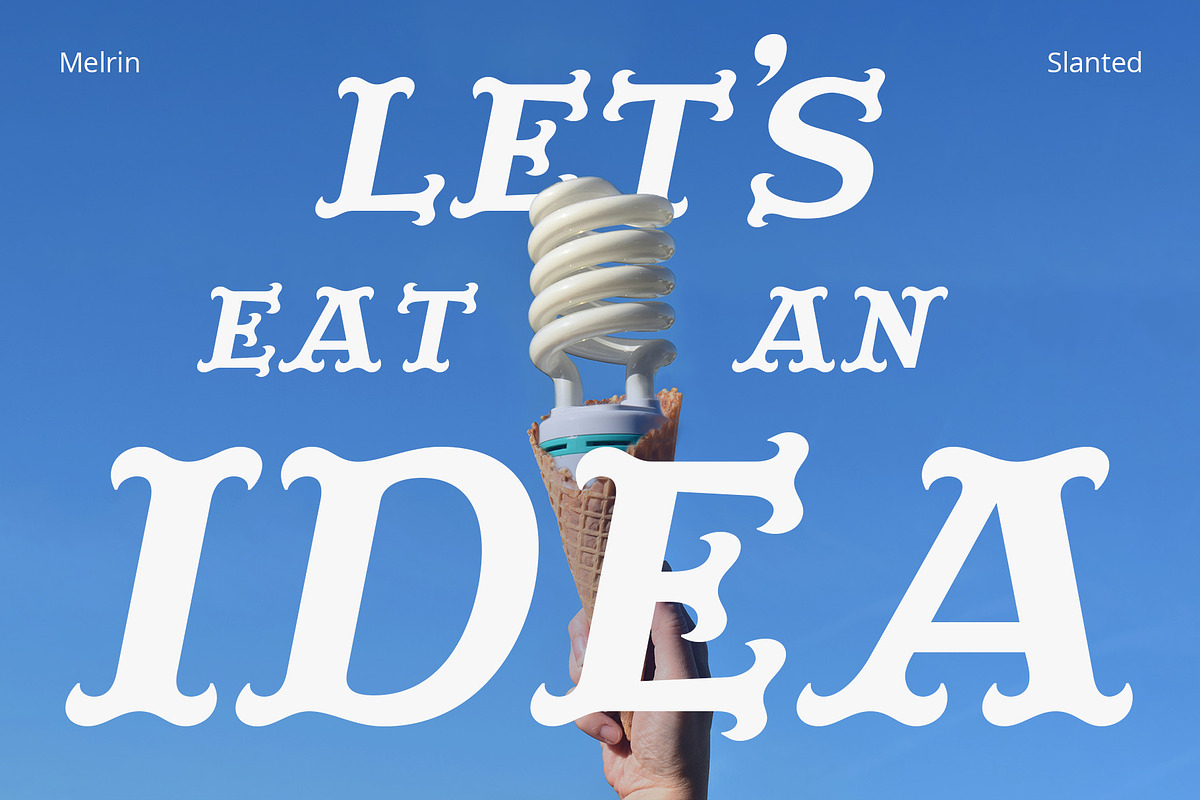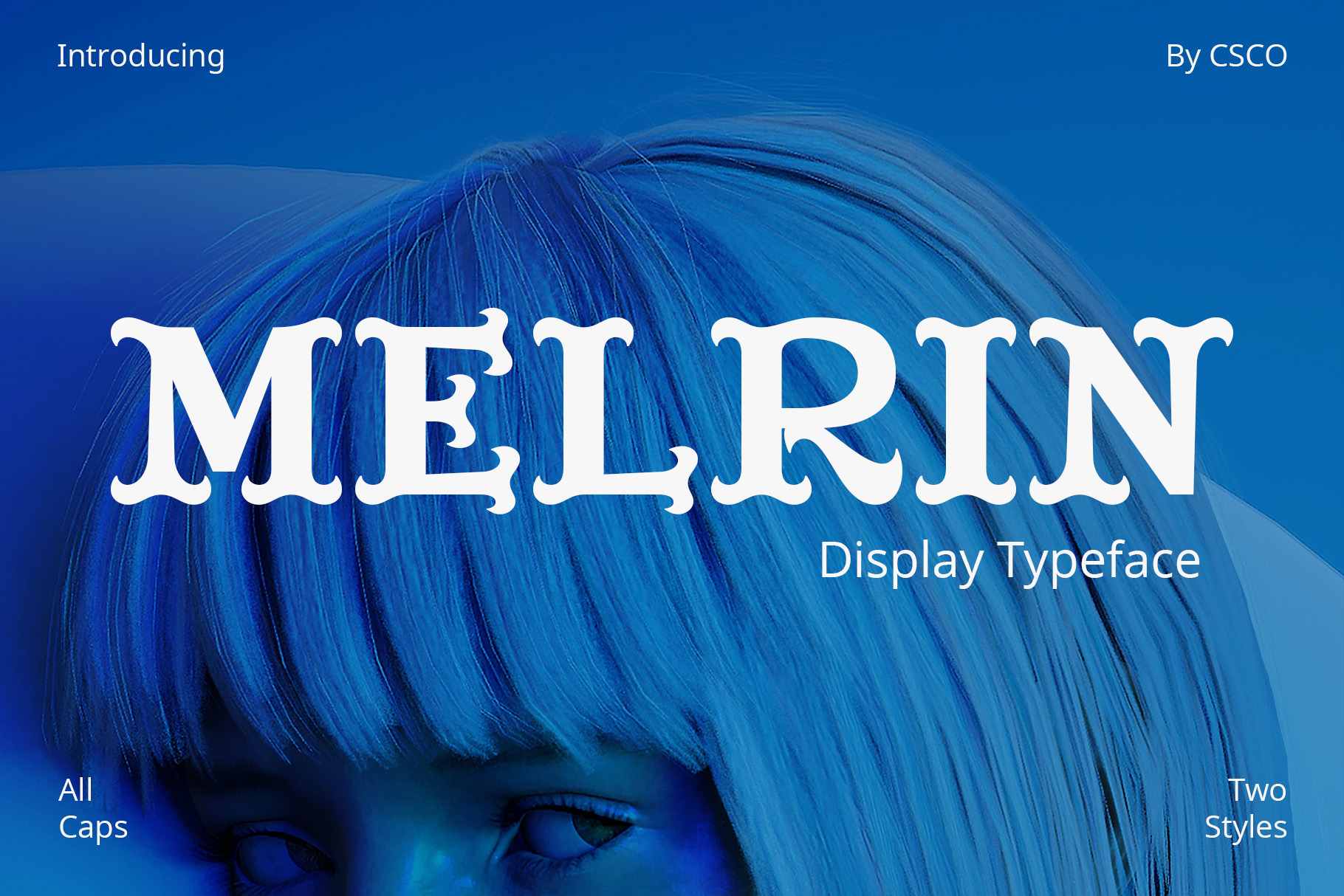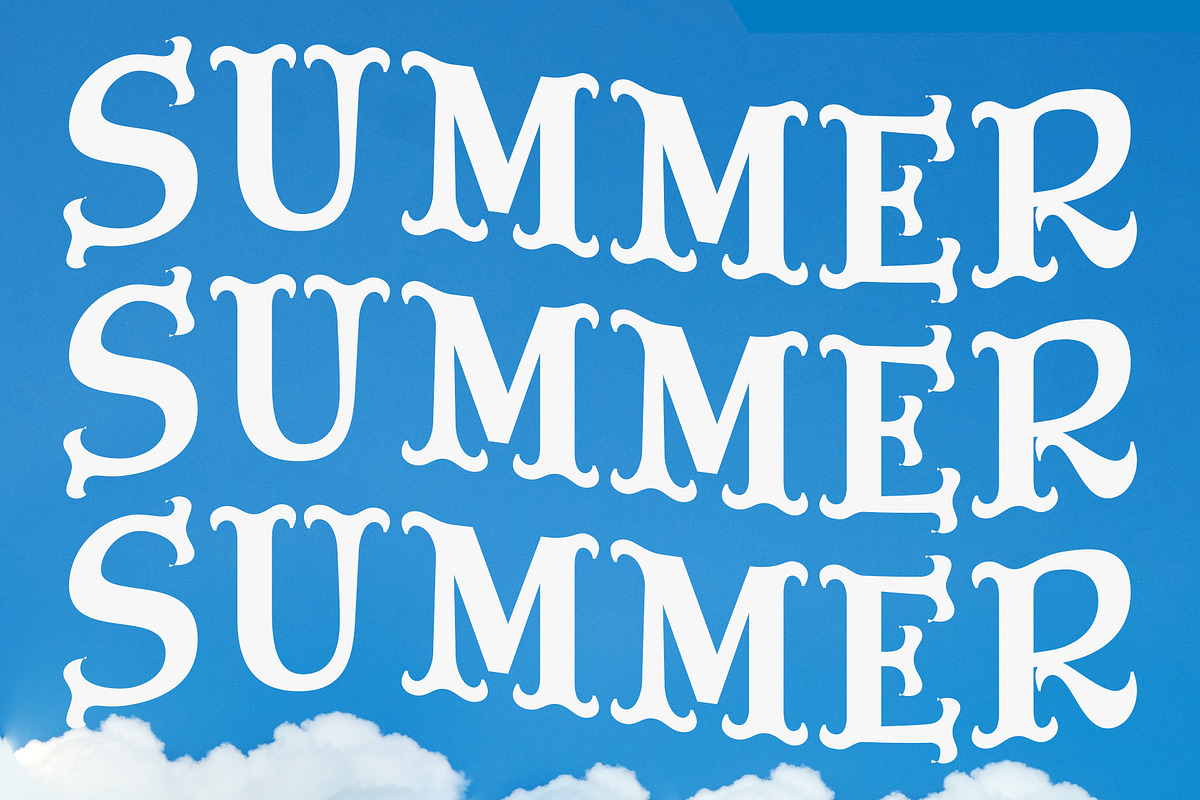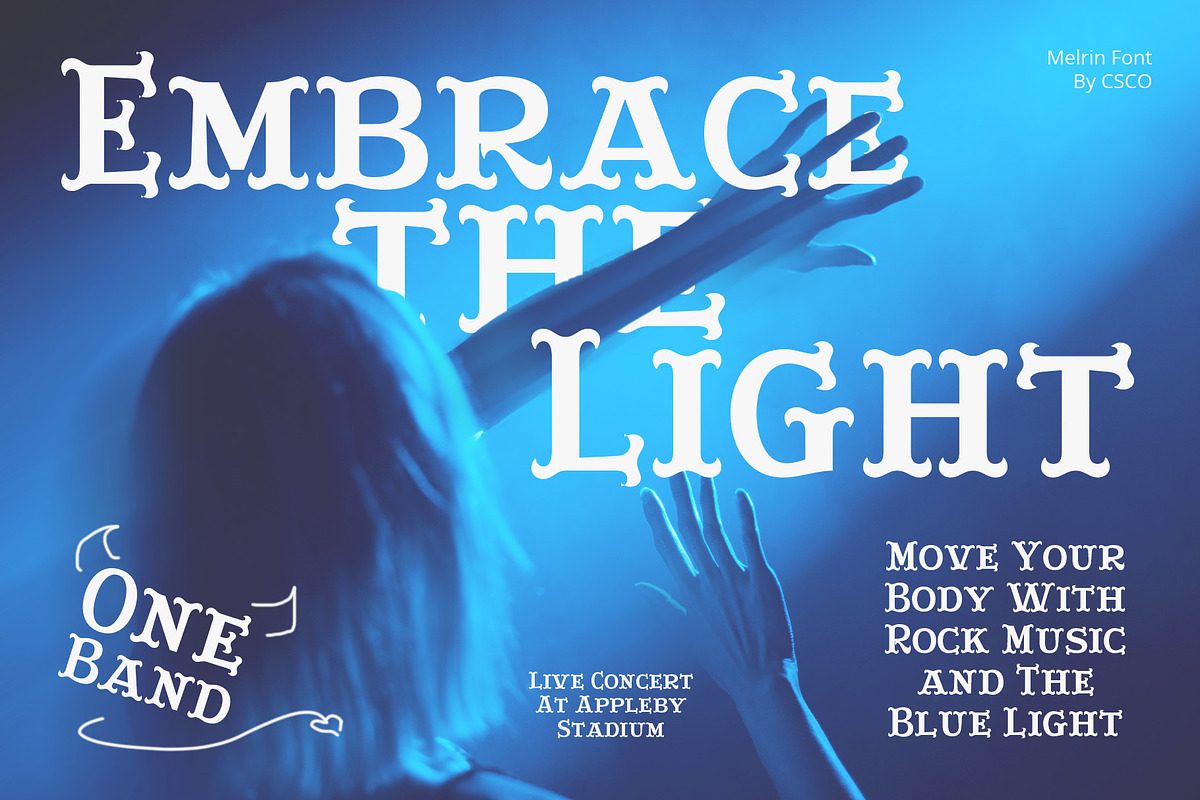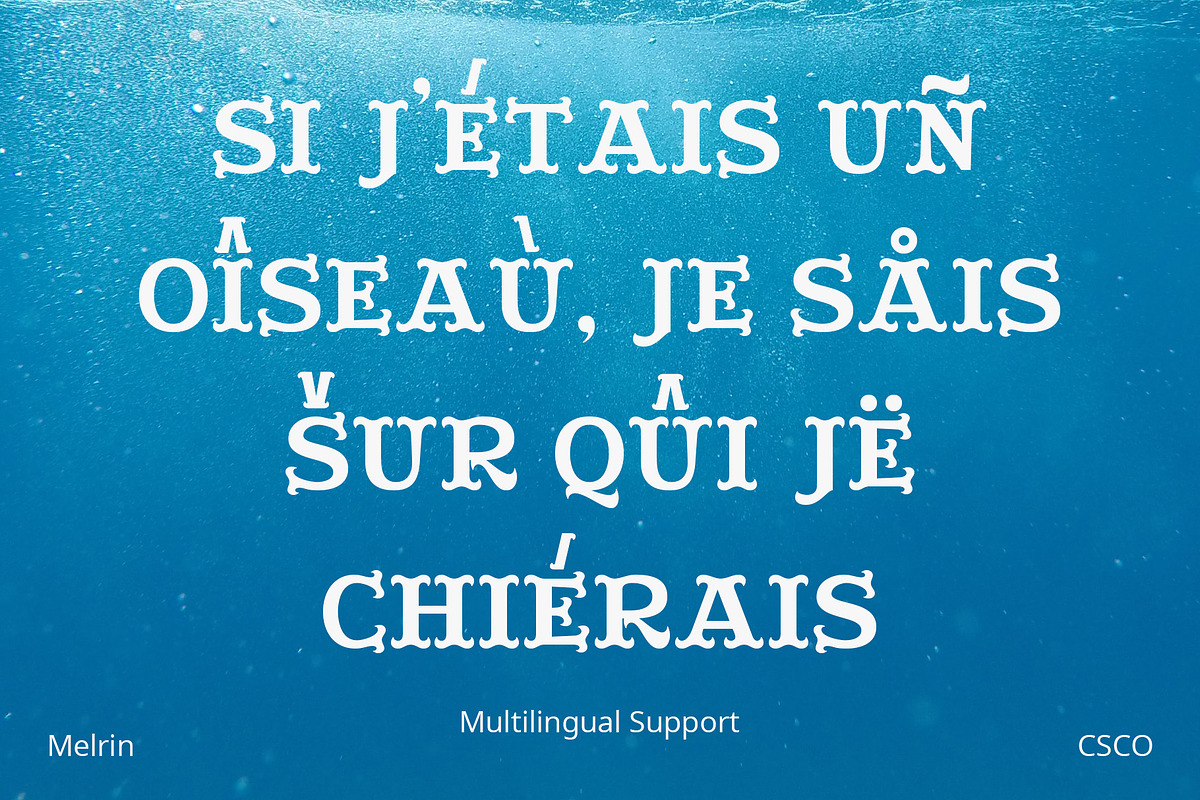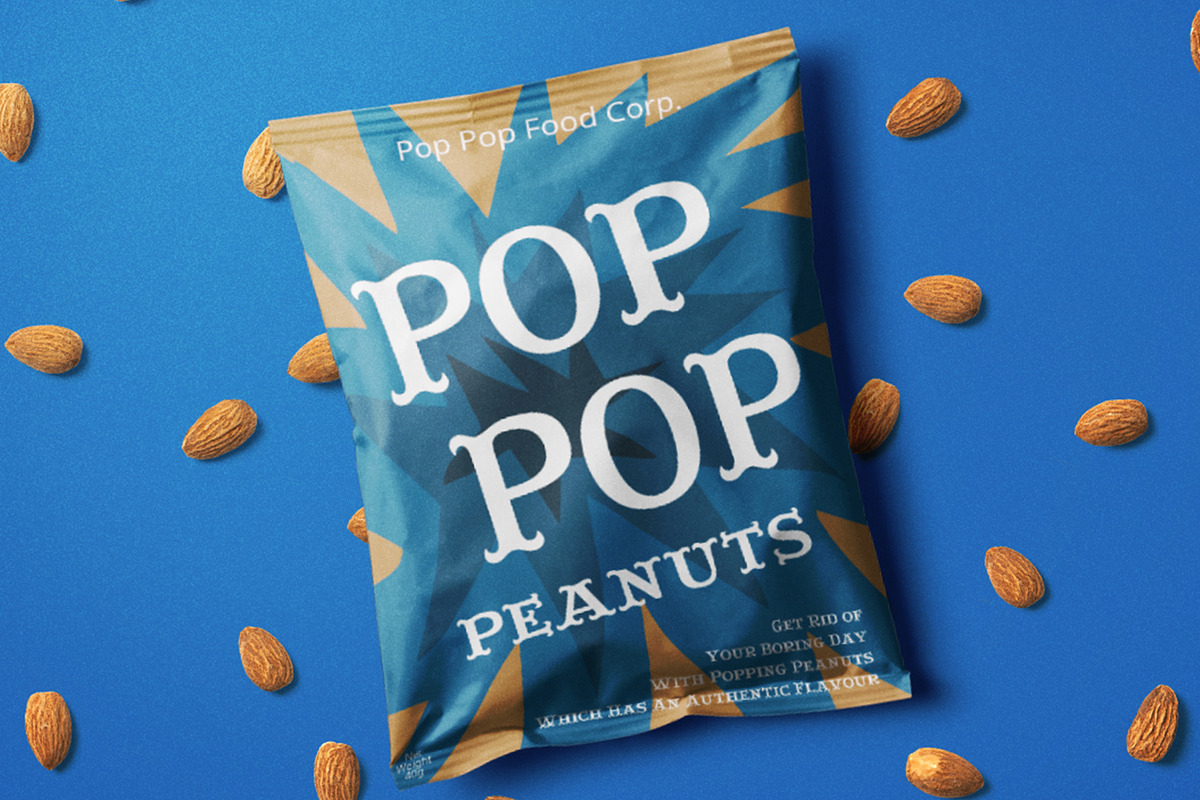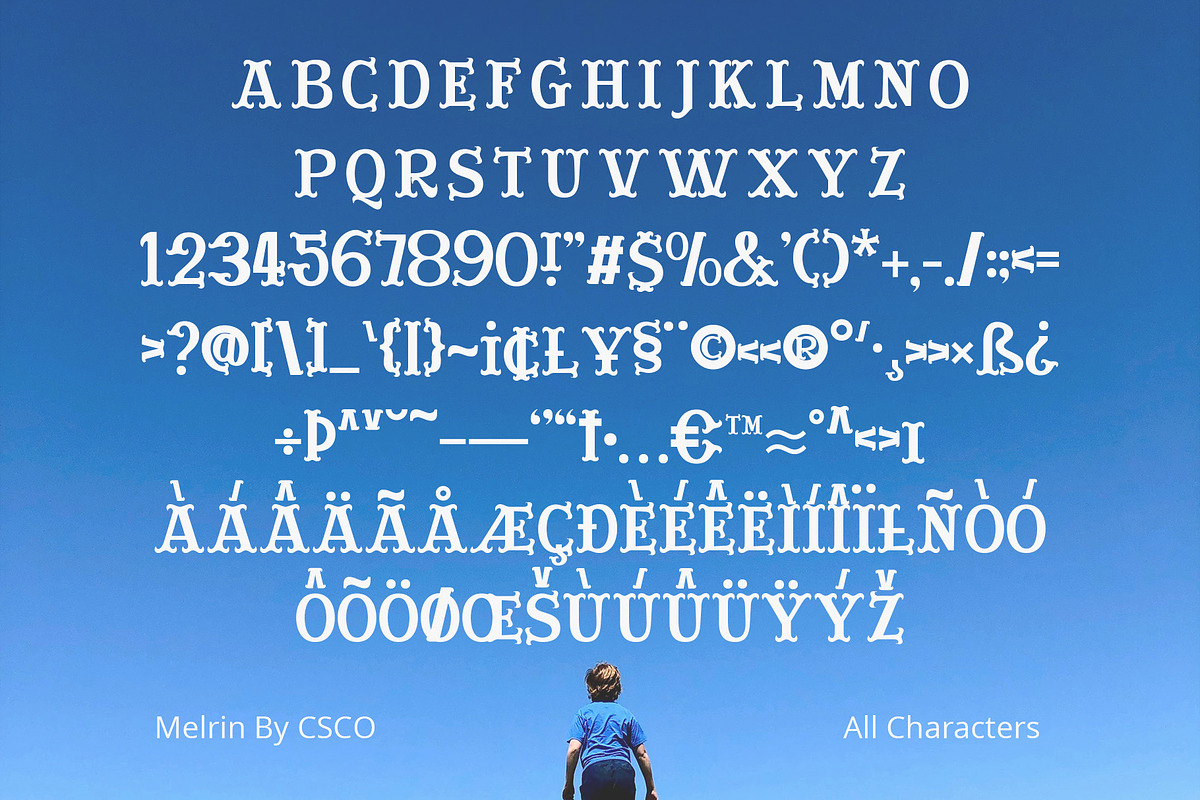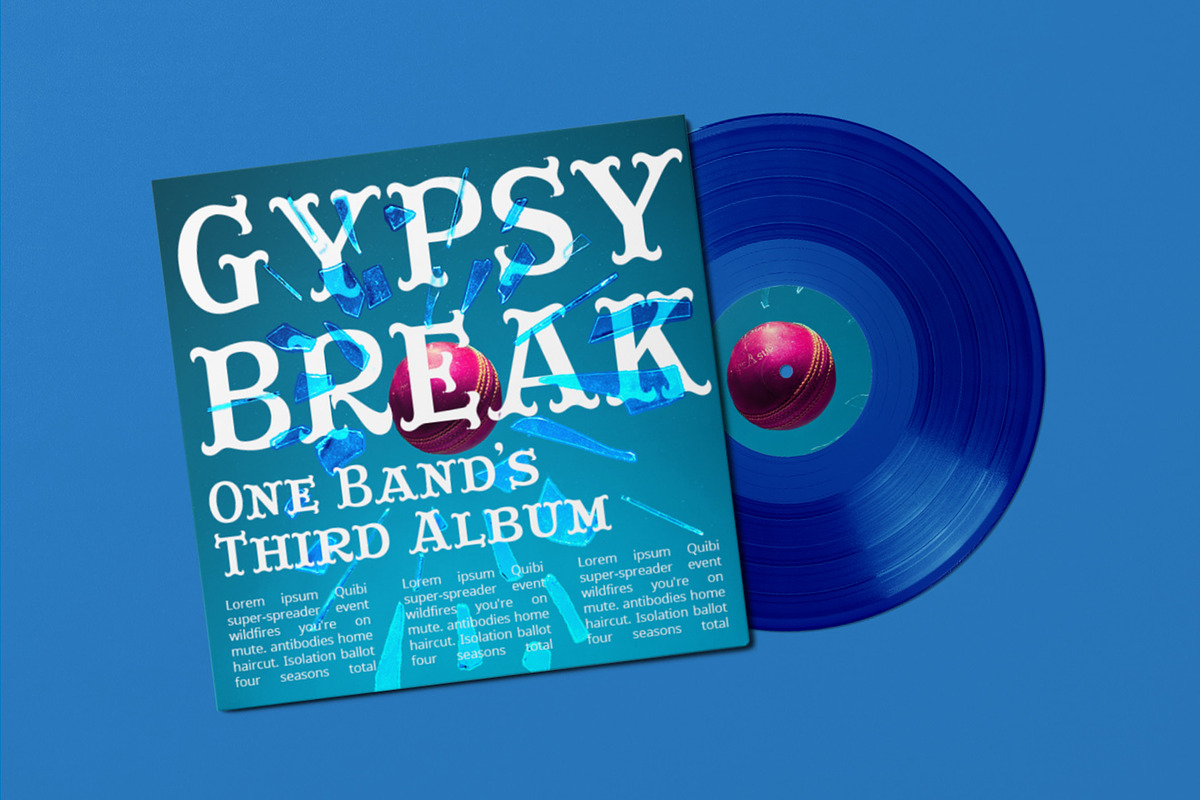
Melrin – Display Typeface
Melrin – Display Typeface: A Floral Serif Wonder
Introduction to Melrin Introducing Melrin Floral Serif Typeface, a display typeface that blends artistic flair with functionality. Its unique design features serifs that bloom like flowers. Ideal for retro designs, Melrin captures the essence of nostalgia in each character.
Design and Aesthetics Melrin stands out with its floral serif accents, reminiscent of blooming flowers. This aesthetic makes it perfect for projects needing a touch of vintage elegance. Its bold structure embodies strength, while the delicate serifs add a soft, artistic touch.
Versatility and Usage Beyond retro designs, Melrin excels in various applications. It’s a top choice for circus-themed graphics, posters, and branding materials. Its versatility extends to digital platforms, enriching websites and online ads with its unique charm.
- Melrin Regular
- Melrin Slanted